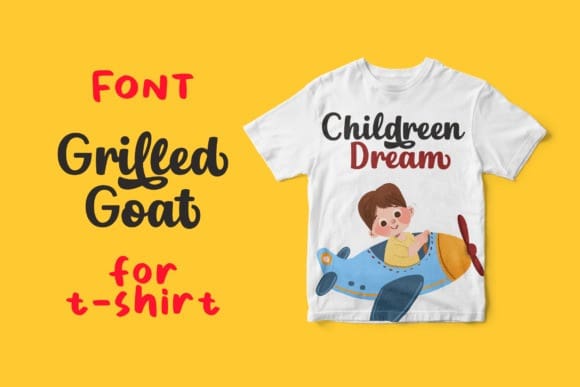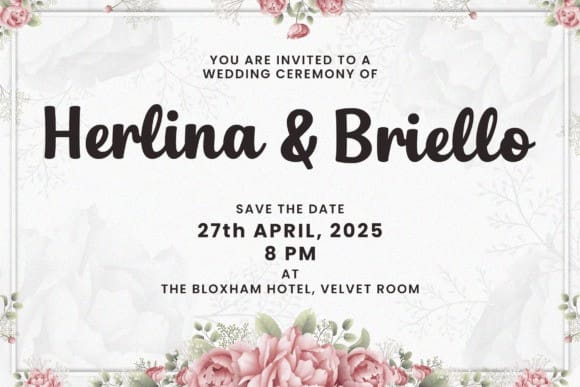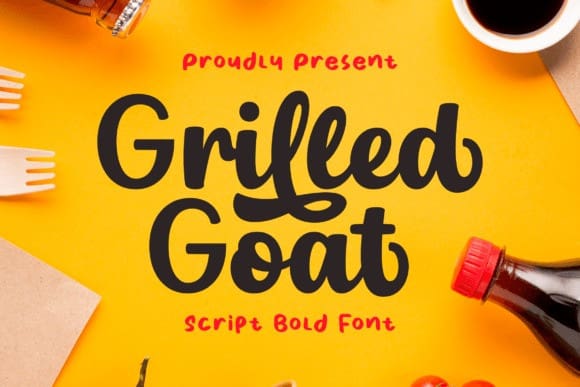
Grilled Goat Font
Grilled Goat Font, the epitome of charm and elegance fused in harmony. This exceptional script font serves as a modern tribute to the timeless art of classical calligraphy. It soars the aesthetic value of various design projects, whether it’s defining your brand, leading your headings, personalizing wedding designs, crafting bespoke invitations, fine-tuning logos, or enhancing labels. Grilled Goat goes beyond a simple lettering style; it’s your passport to a higher realm of design sophistication and refinement.